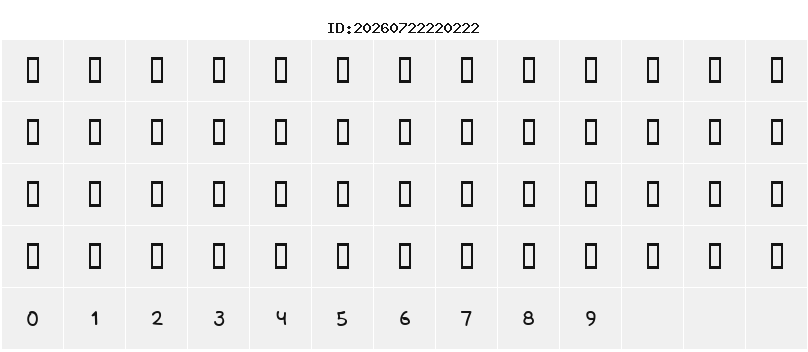
• Font Name: Motek Diet
• Full Font Name: Motek Diet
Motek Diet.ttf is a modern, elegant sans-serif font designed for ultimate readability and visual harmony. Perfect for branding, headlines, web design, and print materials.